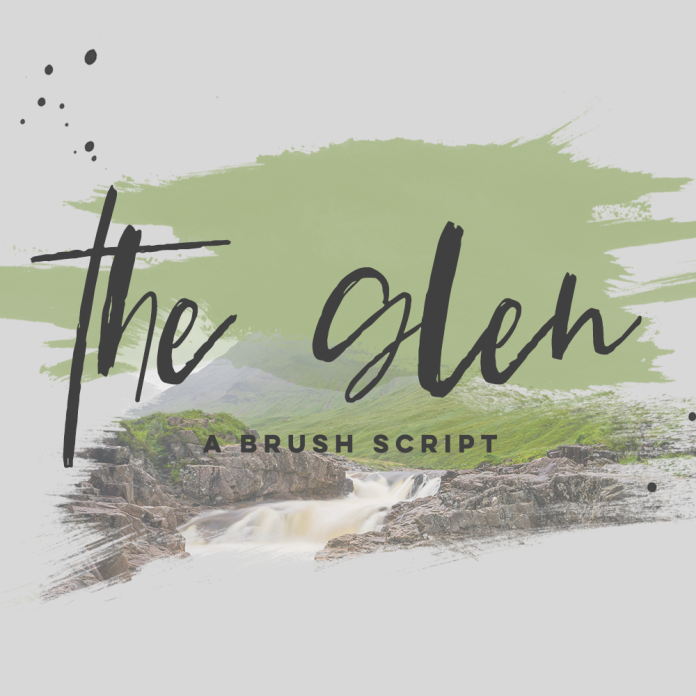
Introducing The Glen, a brush script inspired by the rugged, open Scottish countryside. Edgy and free-spirited, The Glen is a fantastic addition to your font collection.
The Glen will be a perfect fit for:
- modern branding projects
- design projects like cards, stationery, or typography creations
- websites - amazing for headers!
- social media graphics + quotes
The Glen includes:
- full upper + lowercase
- numbers, punctuation
- and a bonus ampersand for a little extra something-something!